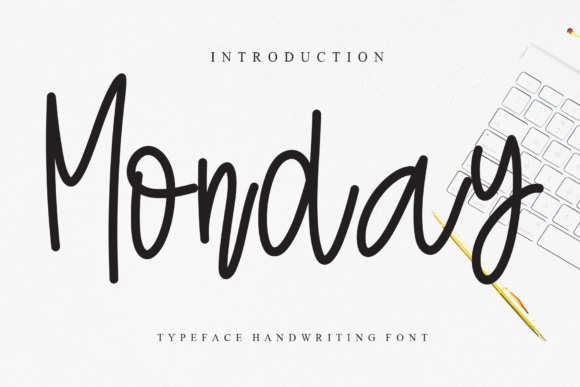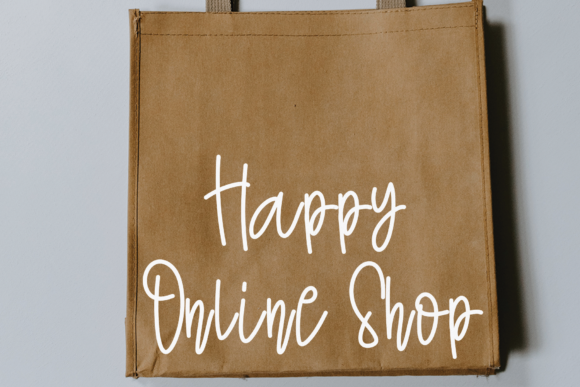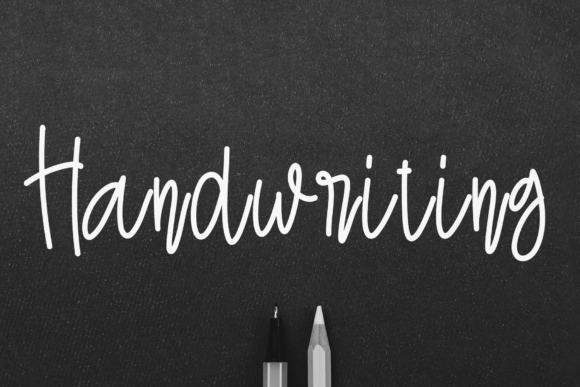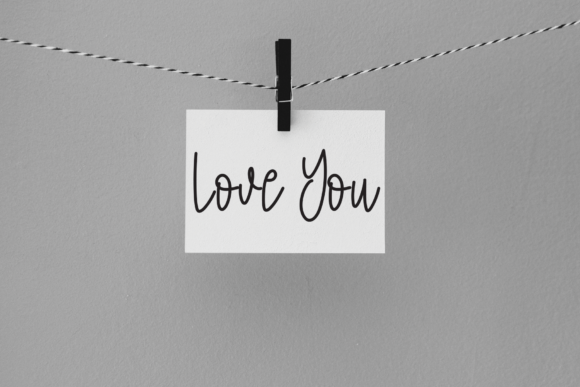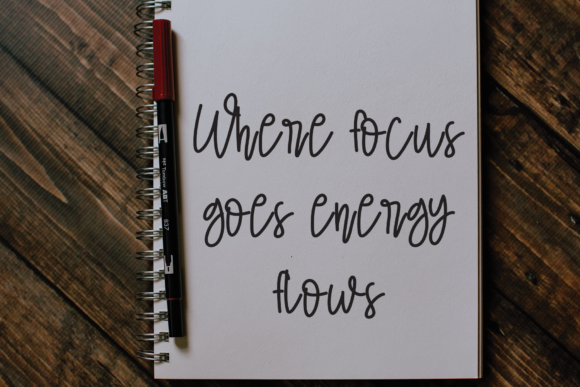
Monday Font
About Monday Font
Monday is an asymmetrical and relaxed handwritten font. It is the best choice for creating eye catching logos, branding and quotes. Every letter has a unique and beautiful touch, which will make your design come alive!